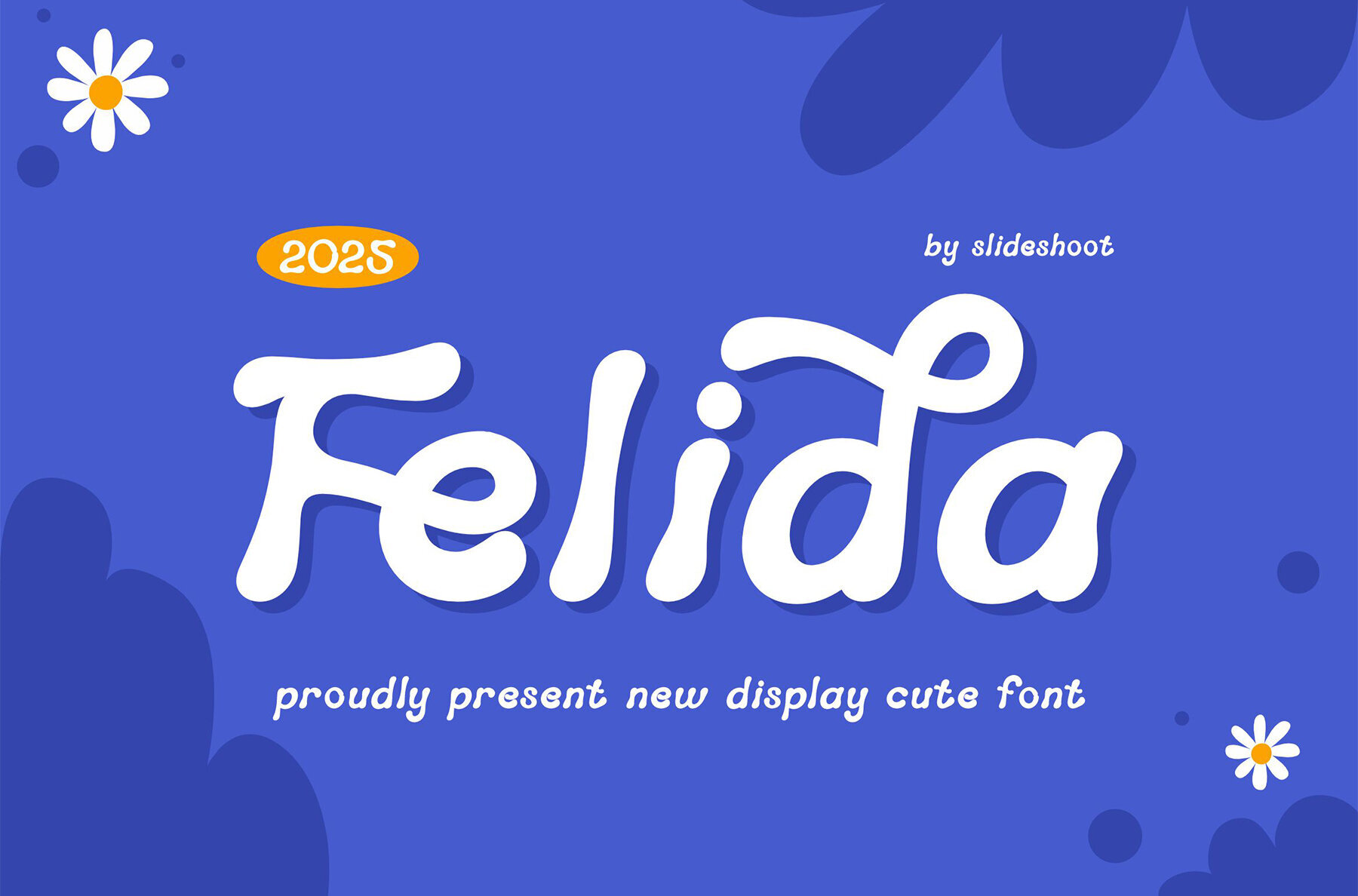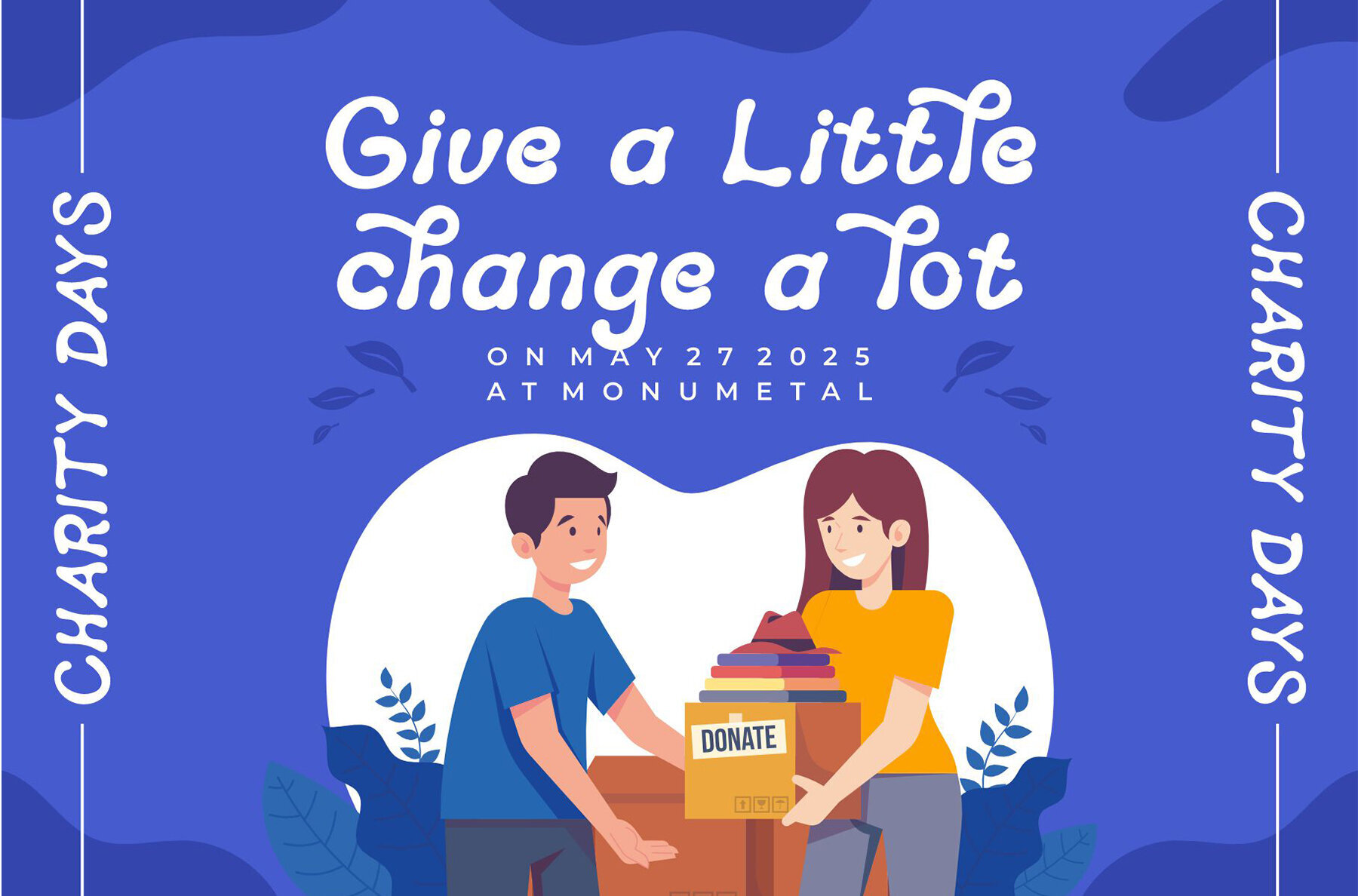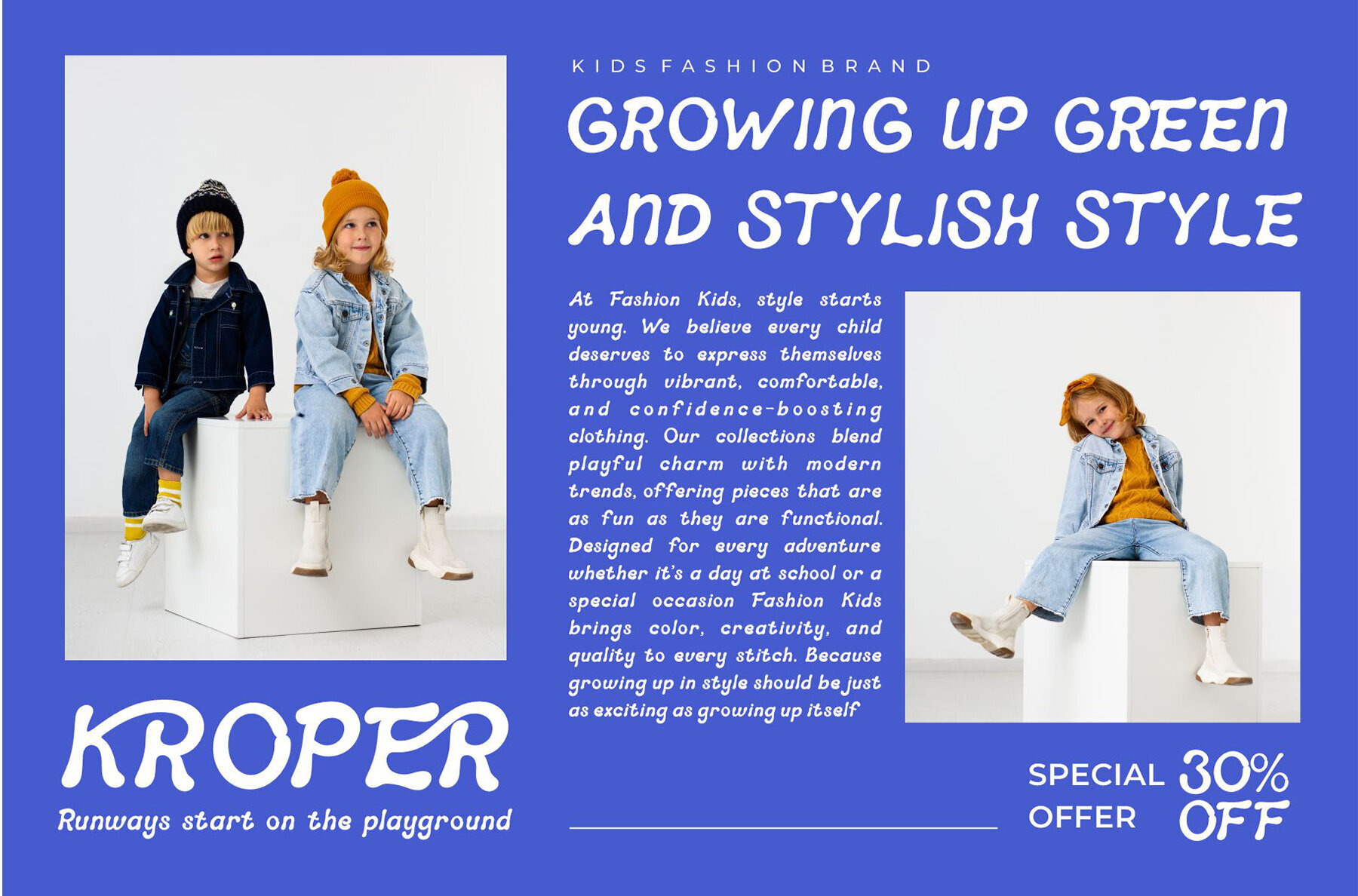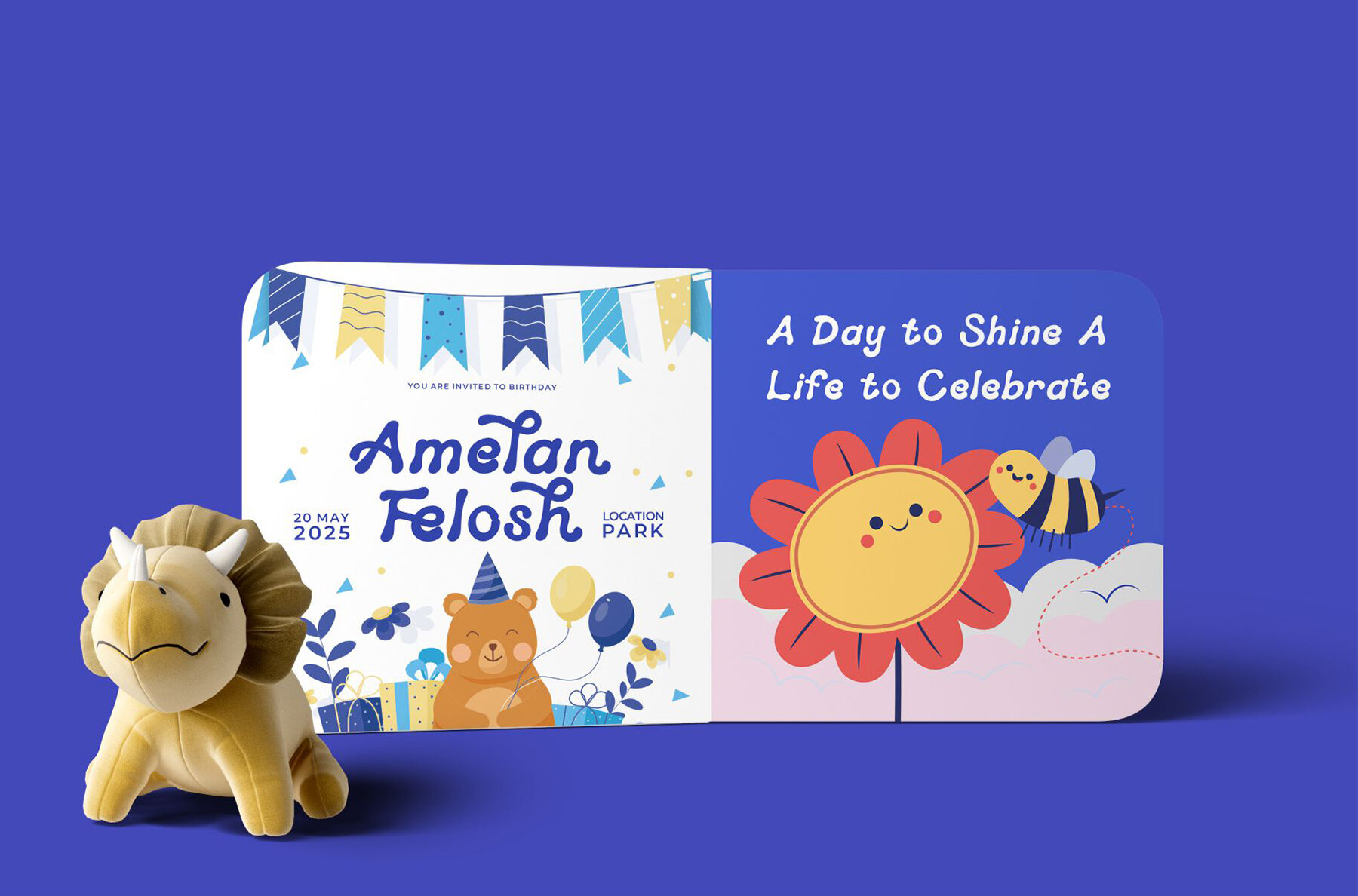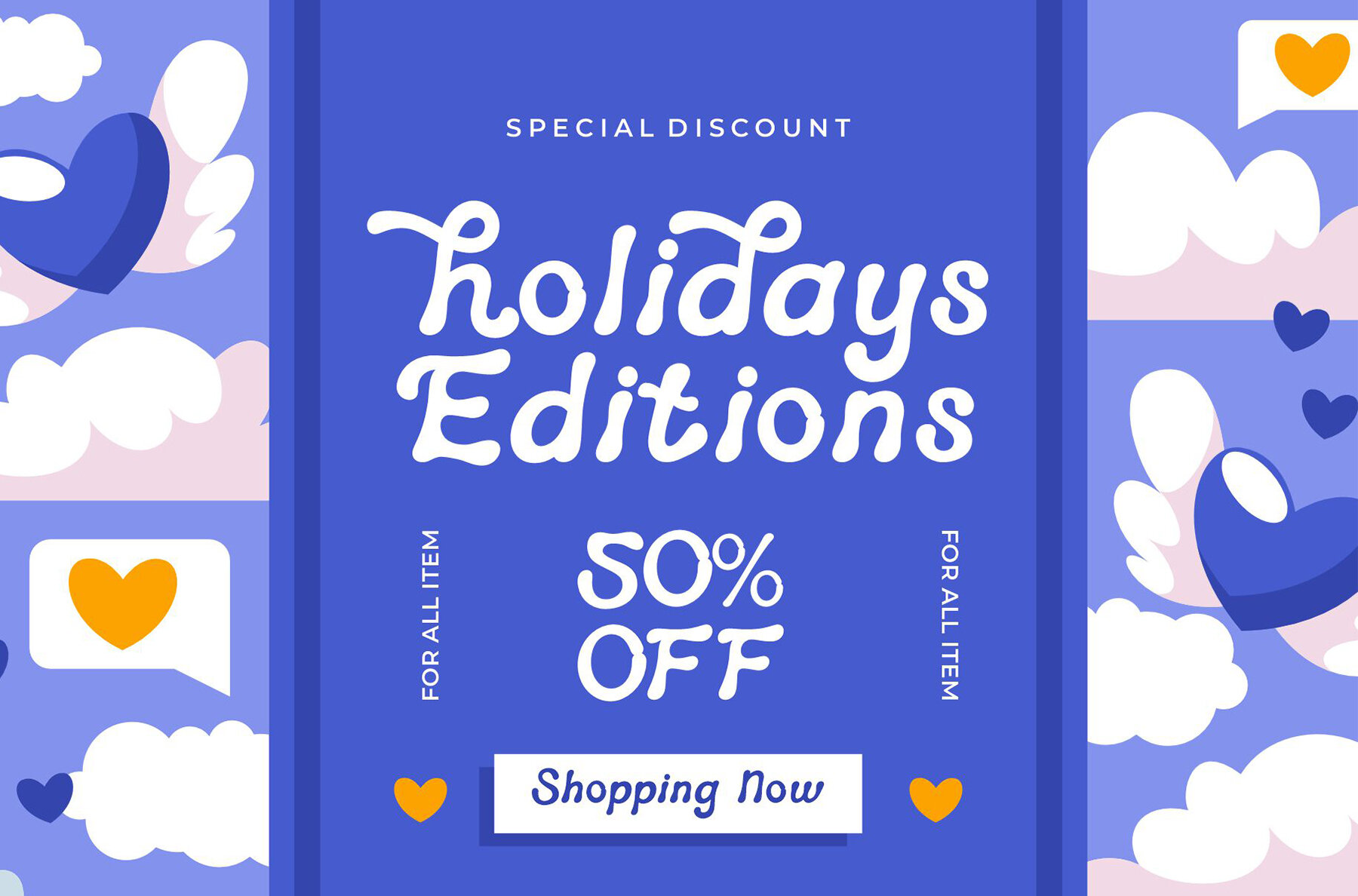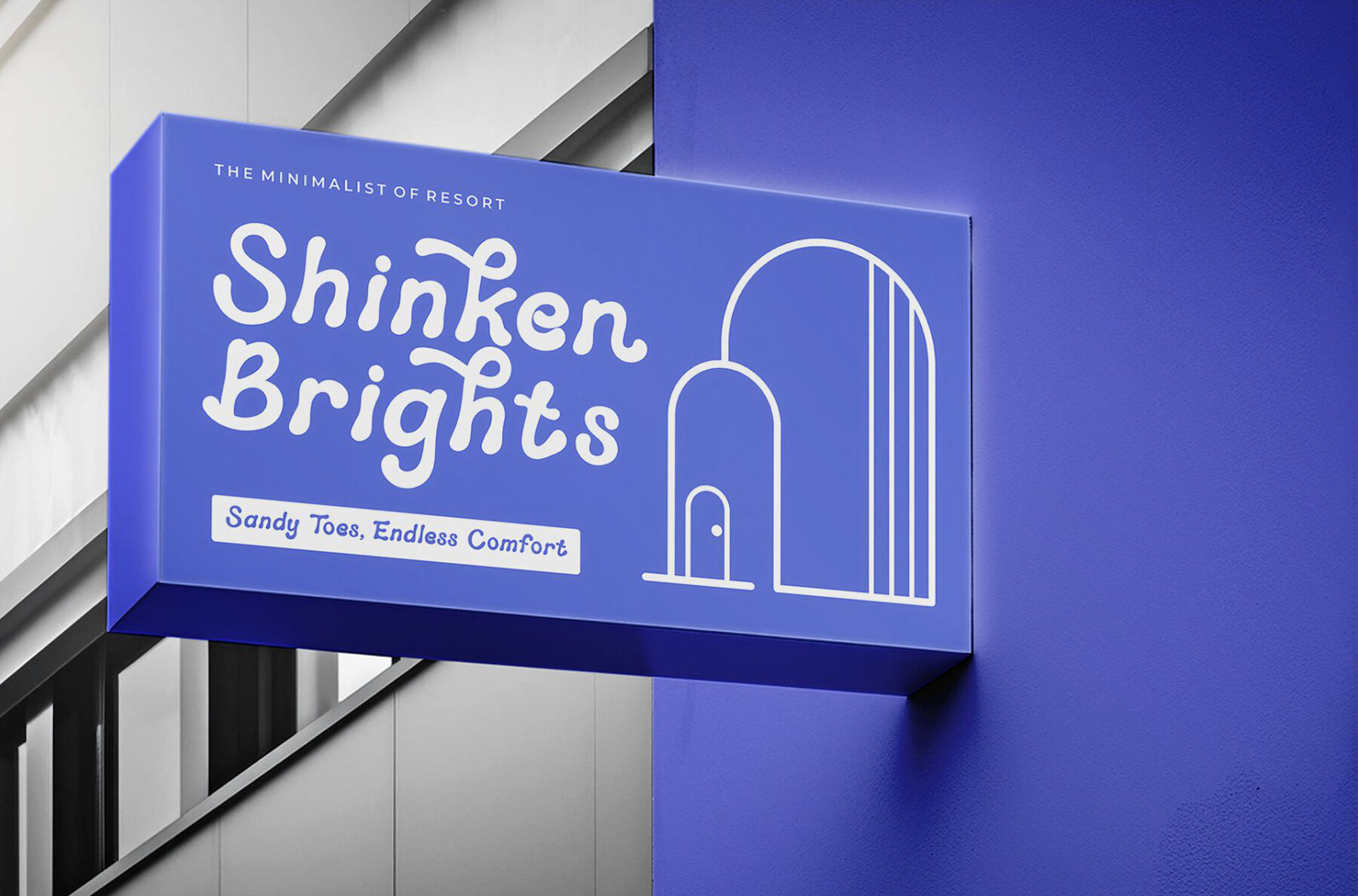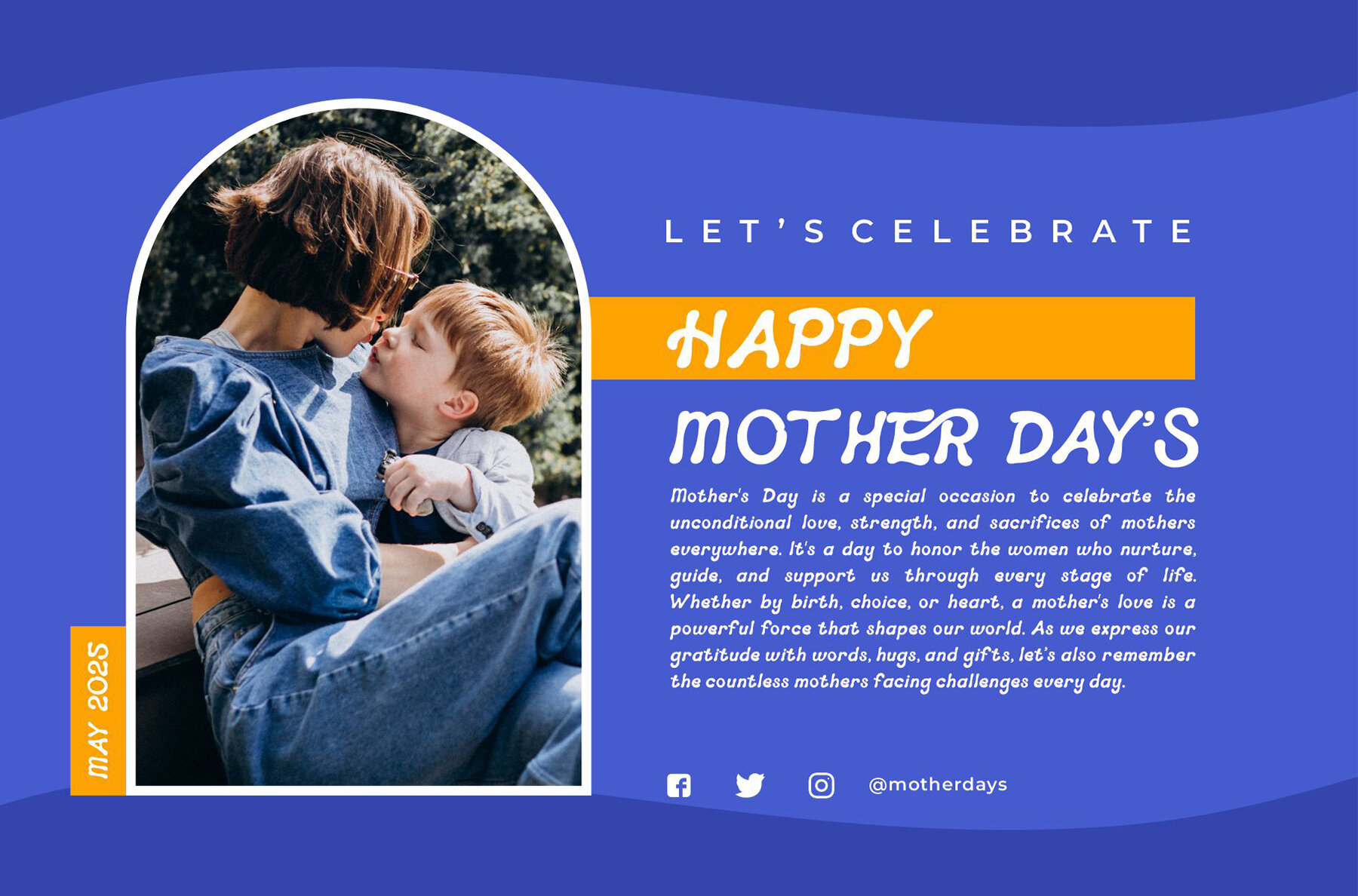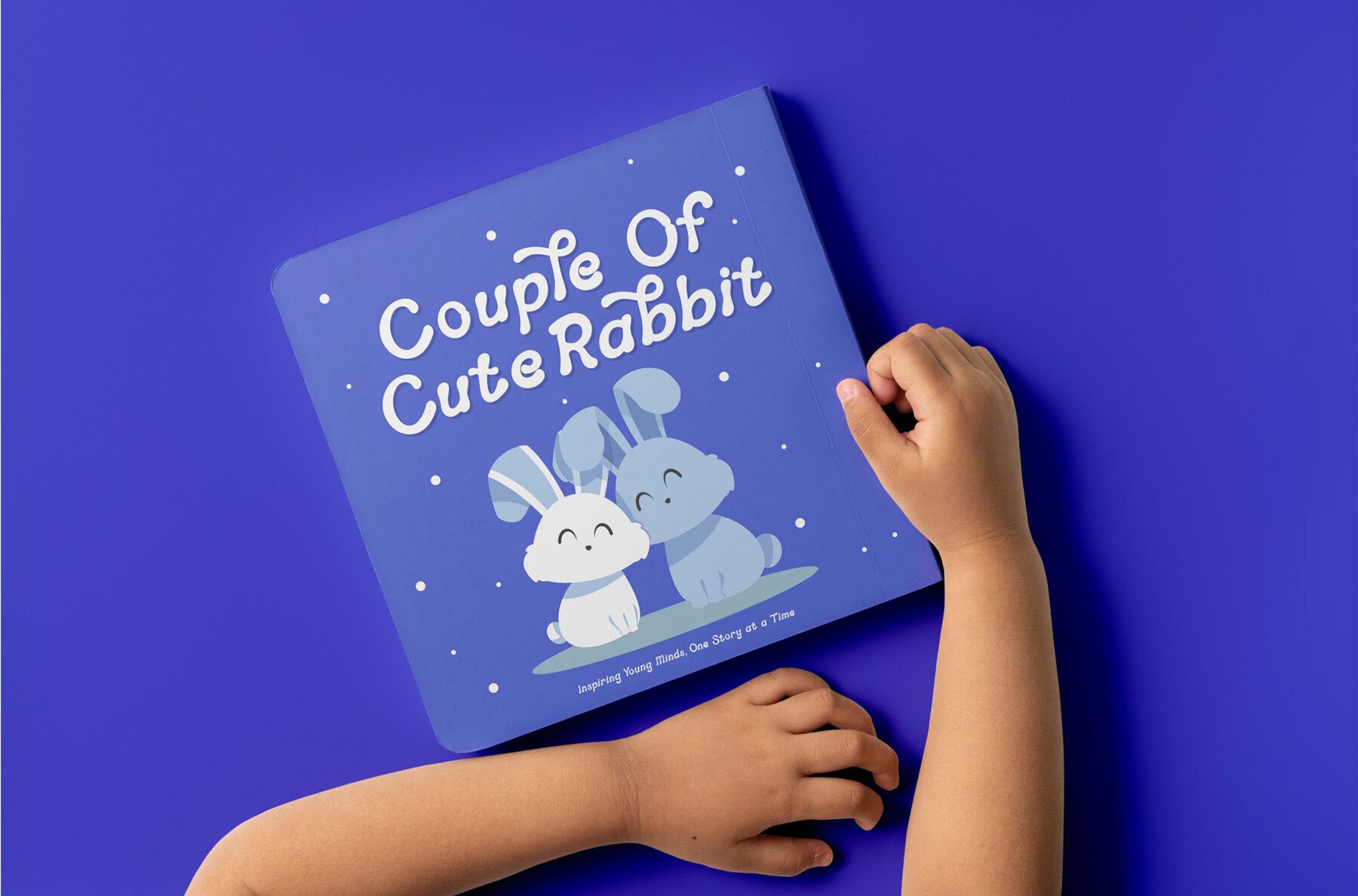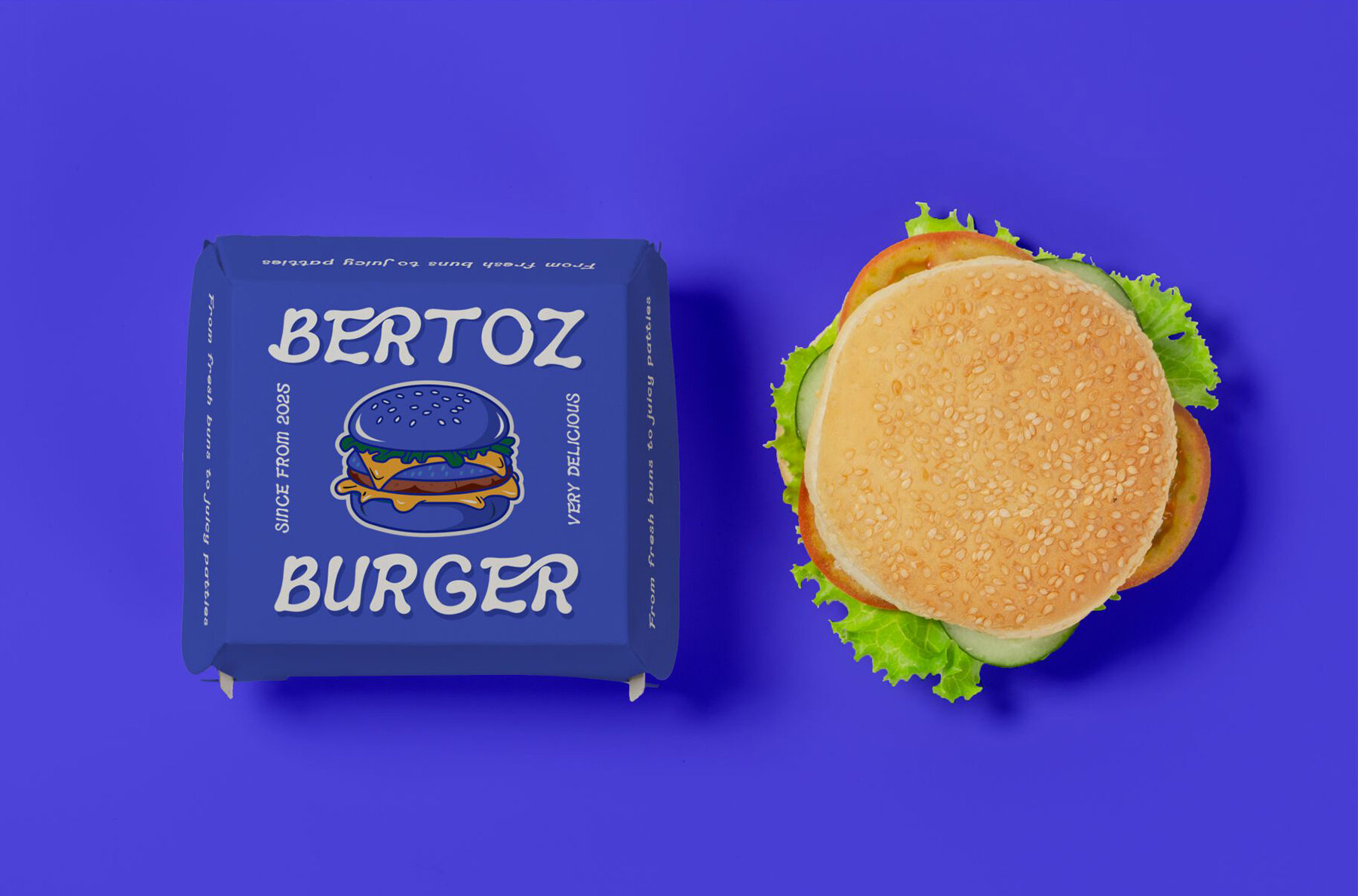
Felida Font
Felida Regular
Felida Display offers a charming and lively typeface ideal for branding and logo design. With its unique character, it finds application in invitation cards, eye-catching logos, movie titles, business cards, book covers, brand names, and more. As a smooth display font, it exudes both sophistication and modernity. Its stylish ligatures make it an excellent choice for any creative project.Felida Display: Playful Typography for Distinctive Branding